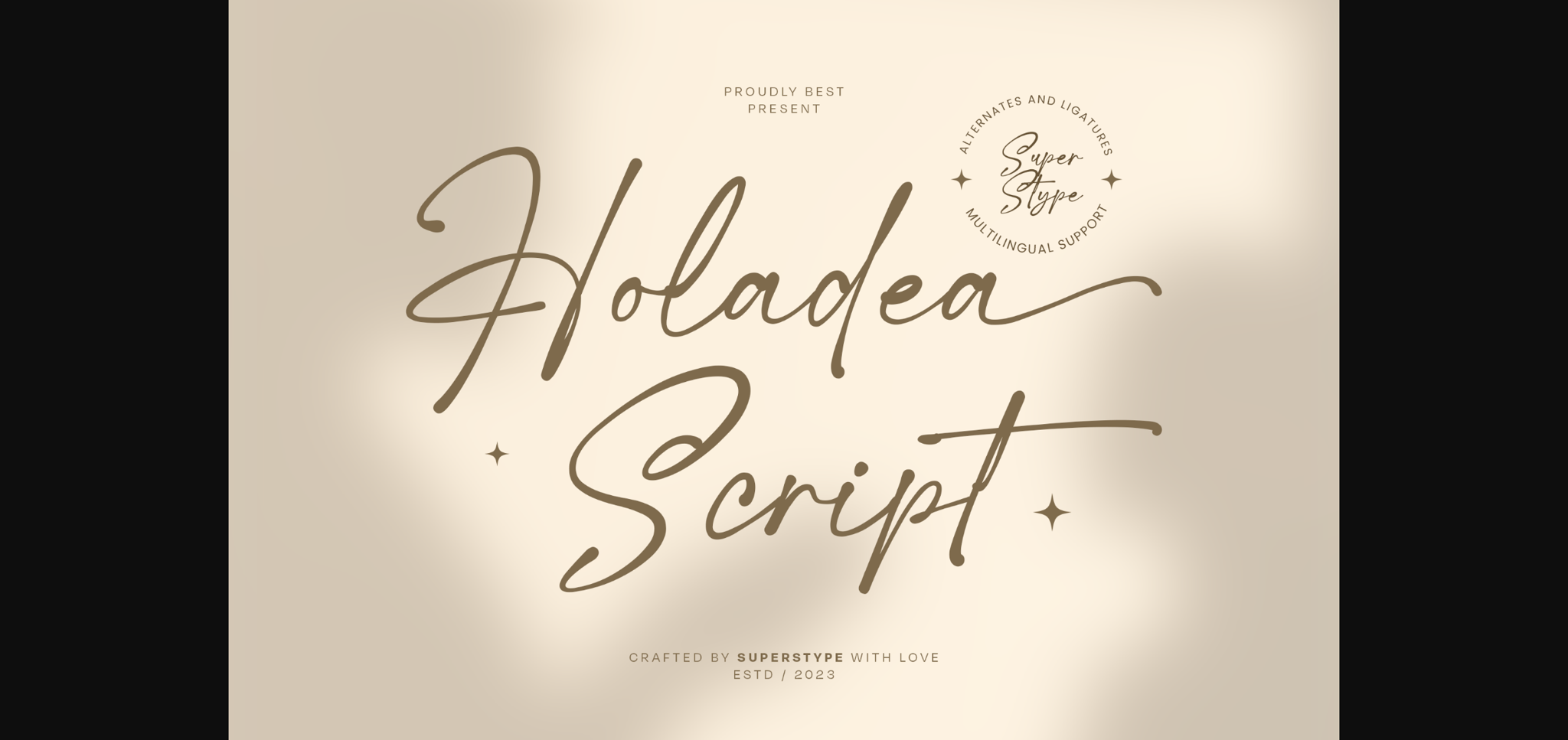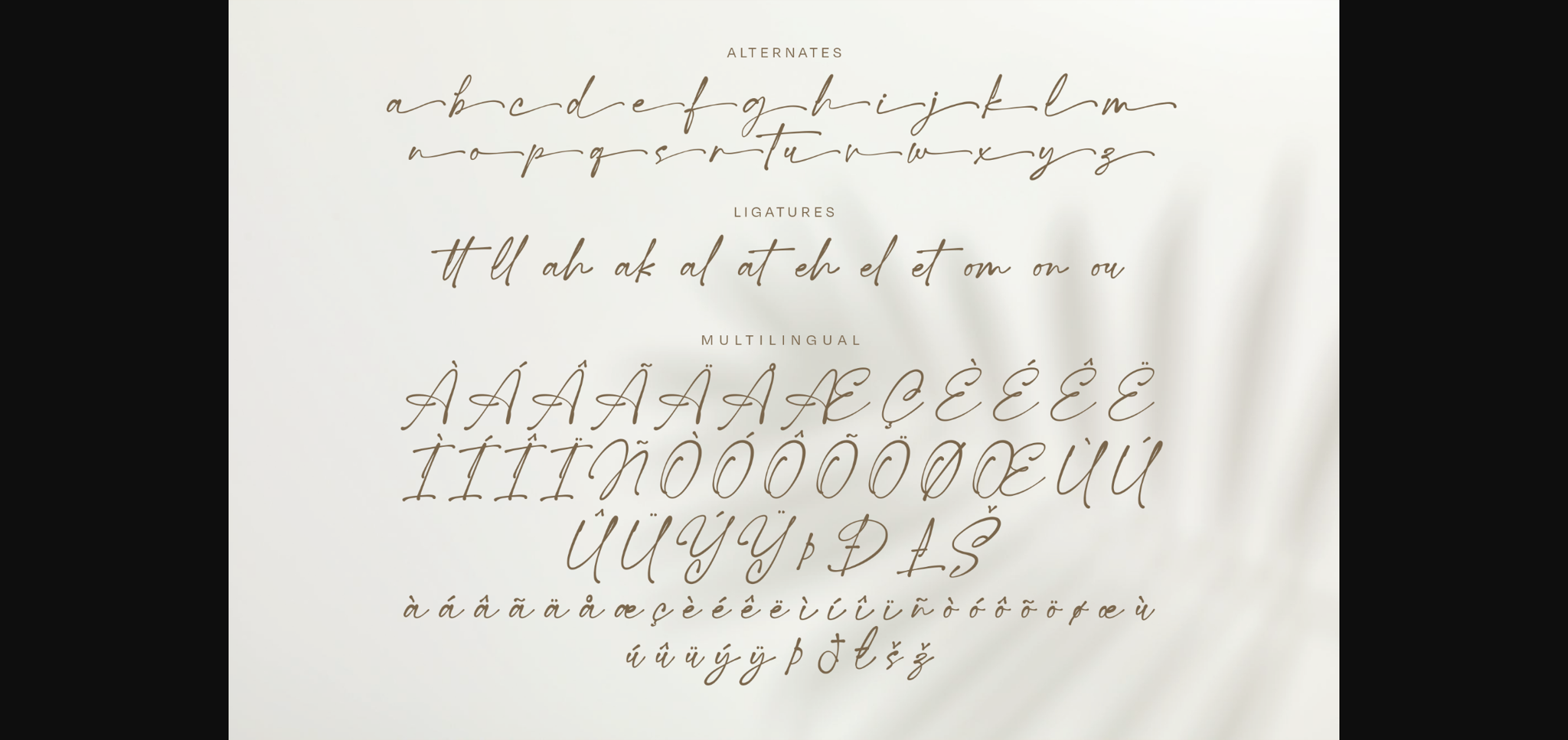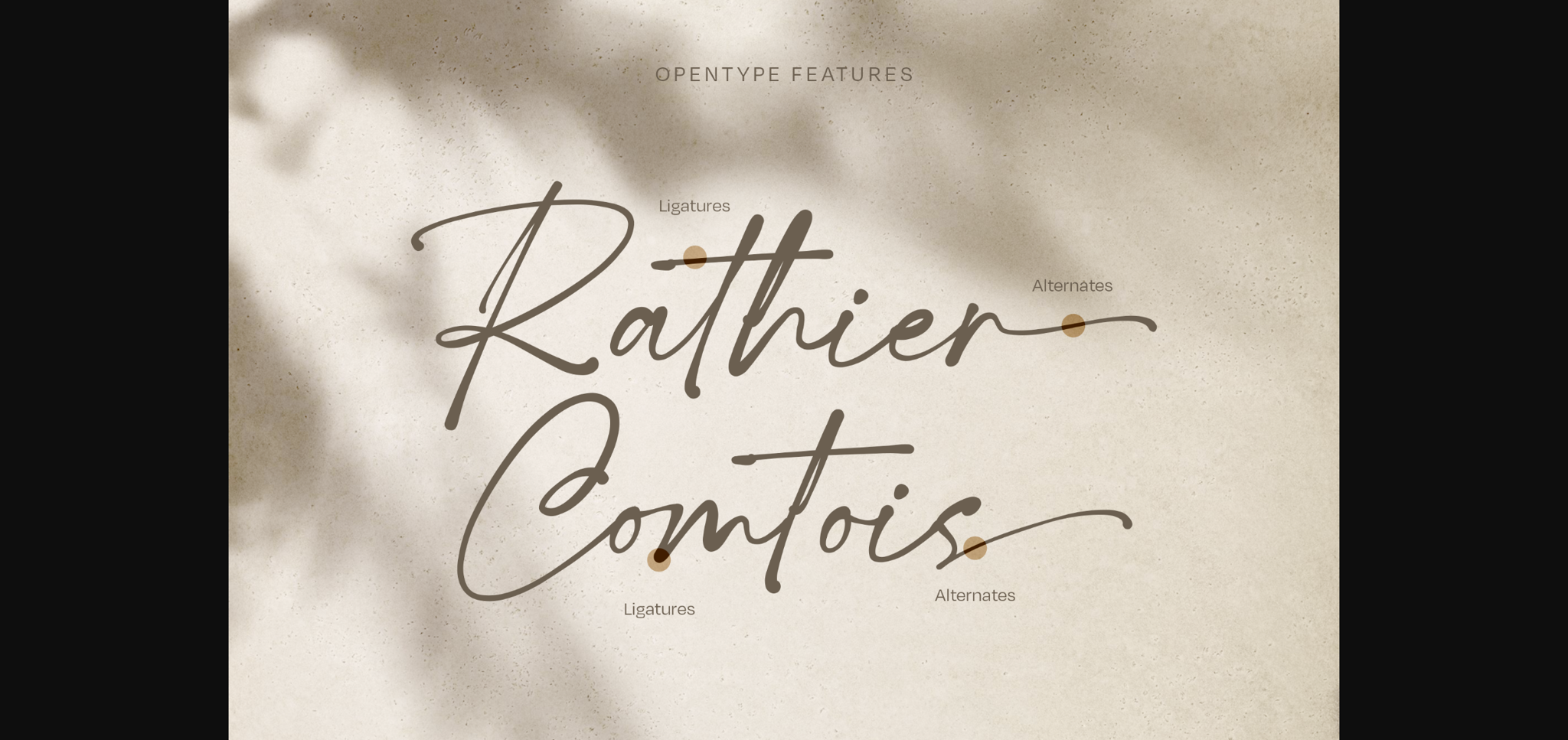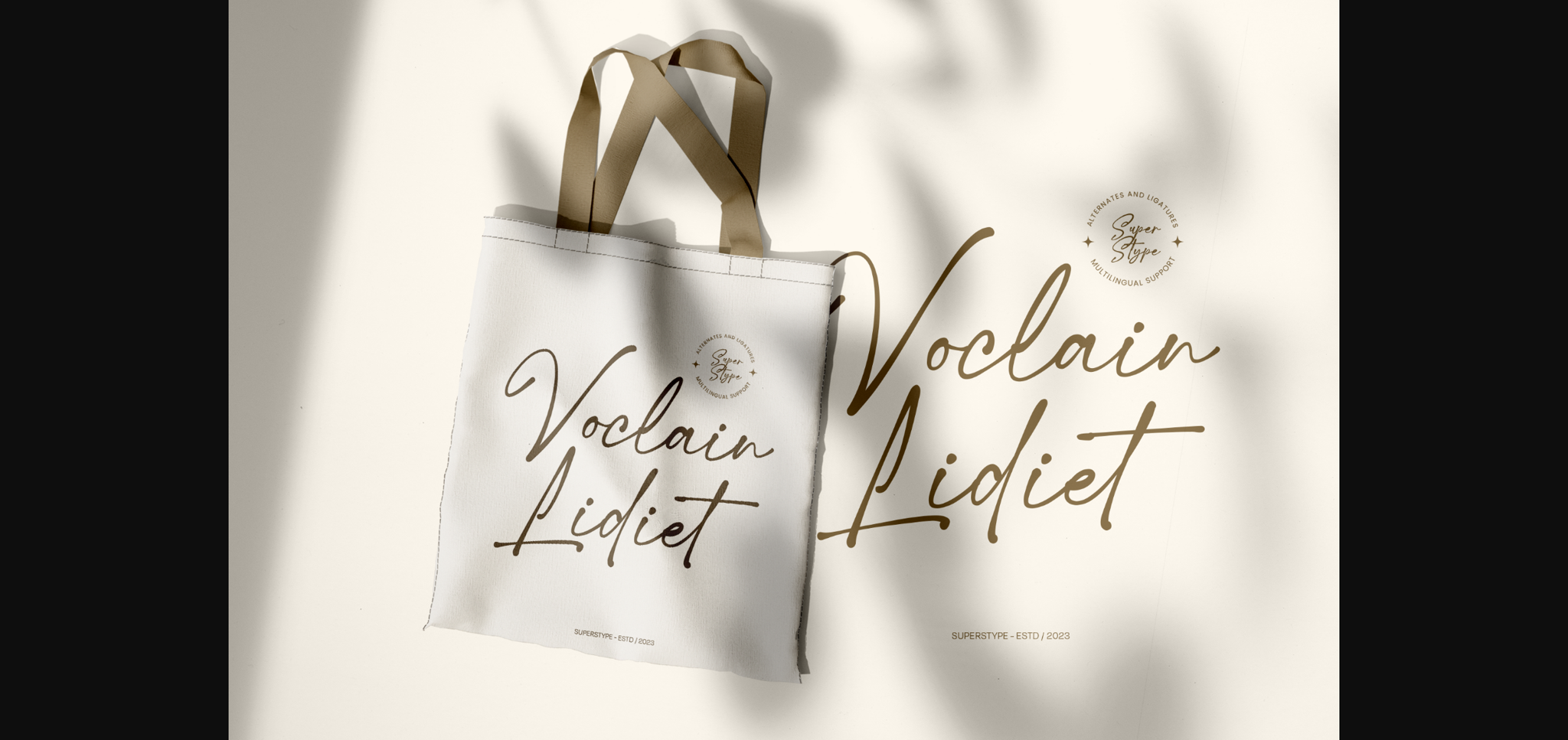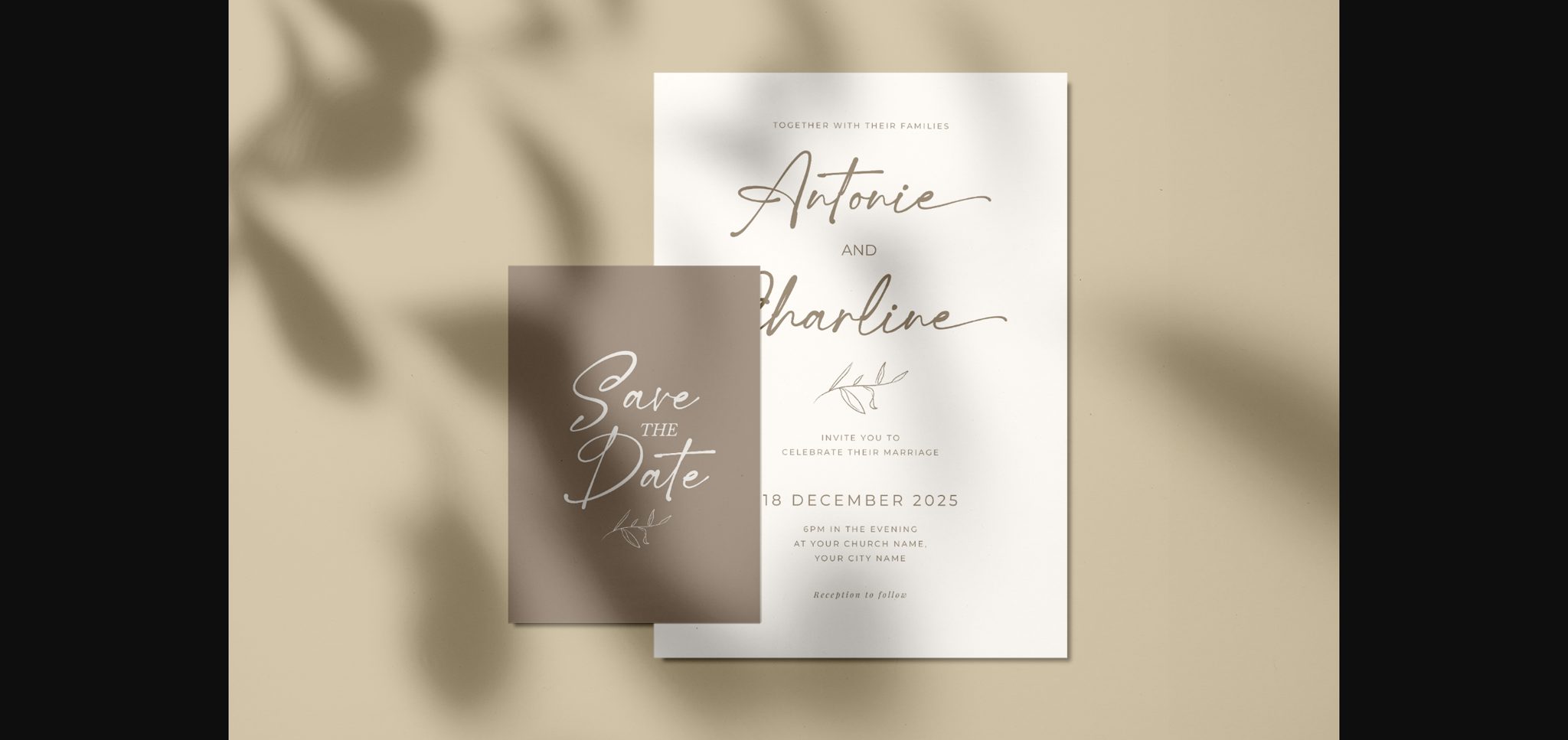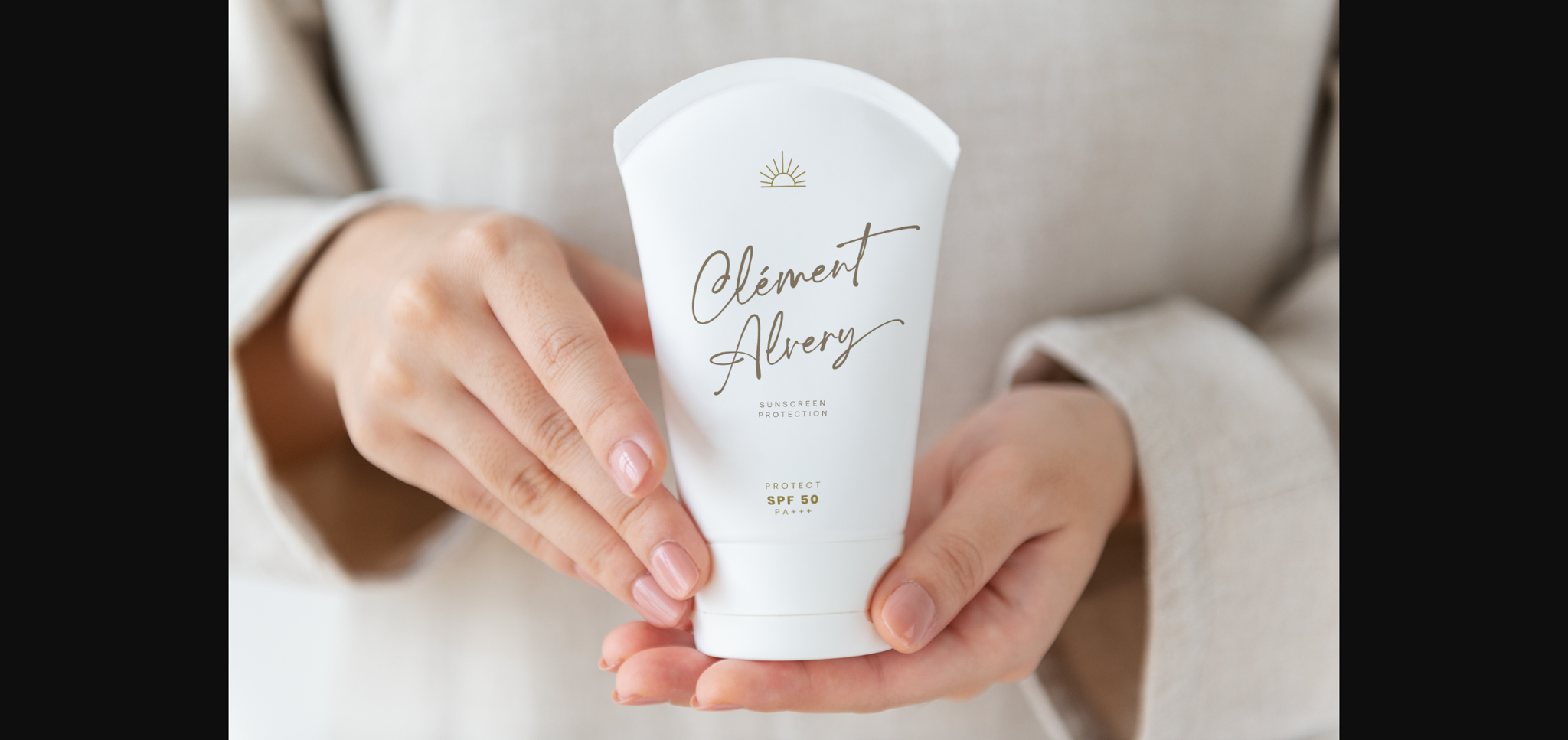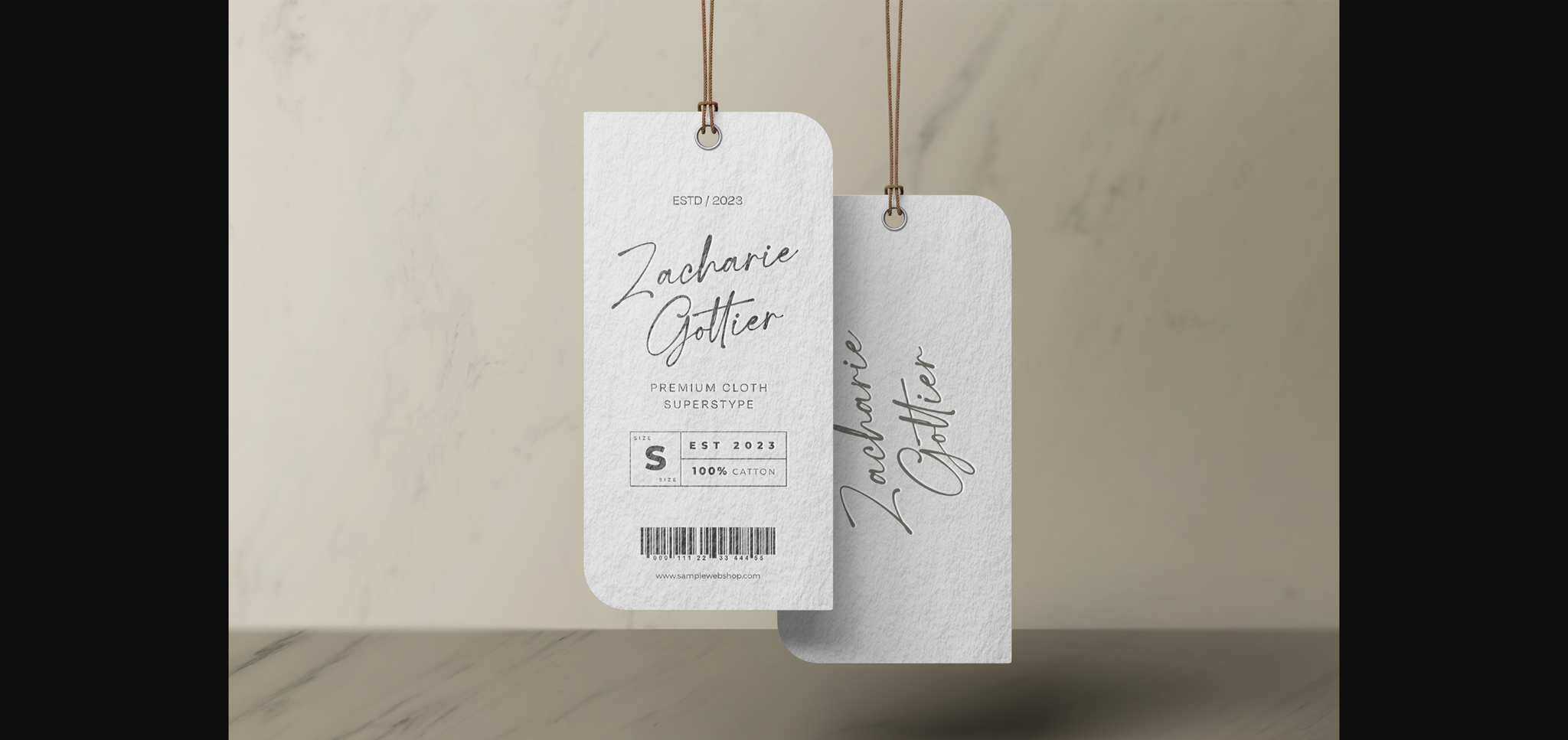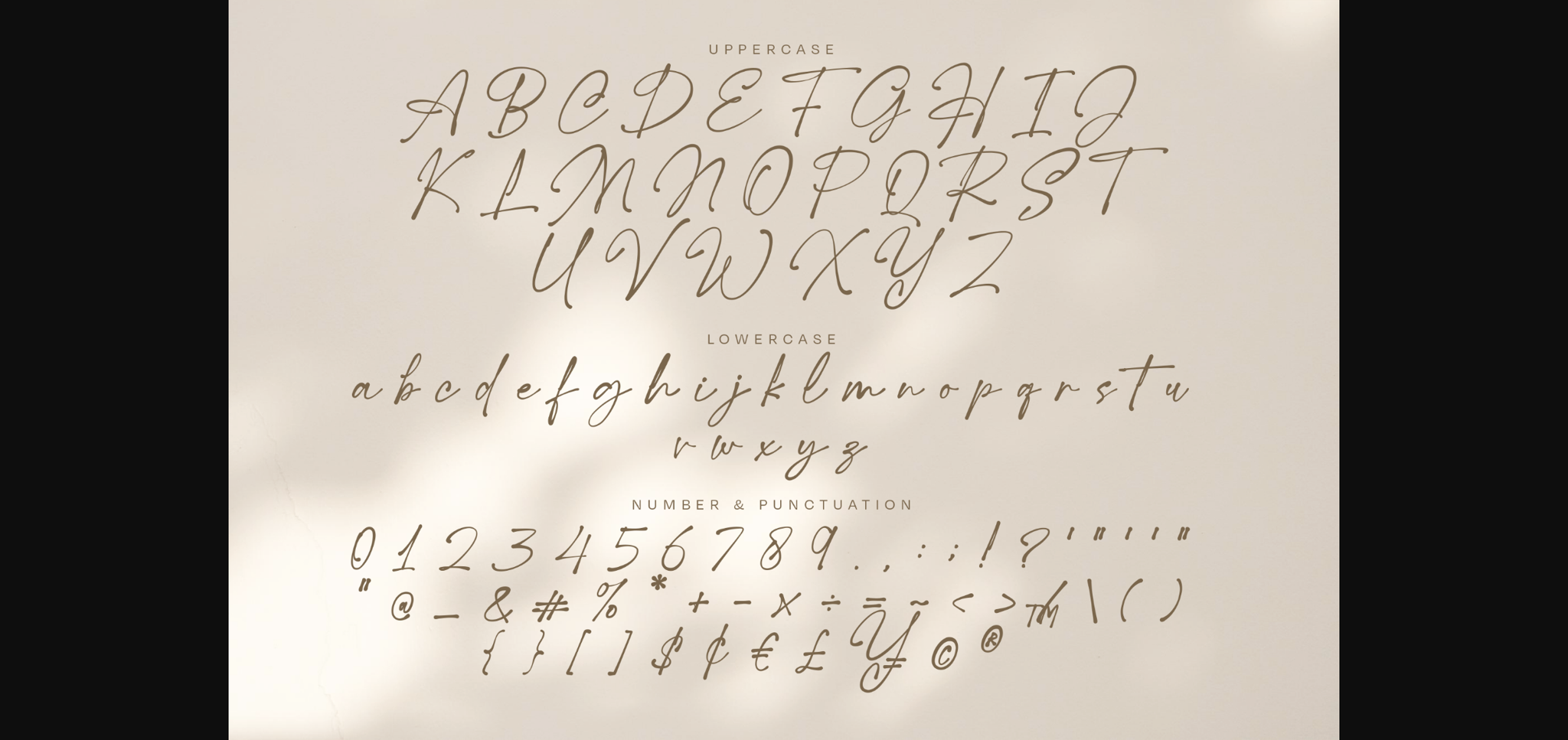
About Holadea Script Font
We’re excited to announce that we’ve released this new font “Holadea Script”⭐️
Holadea provides an amazing experience with beautiful and charming strokes and gives an aesthetic impression. Very beautiful to combine with your various project designs.